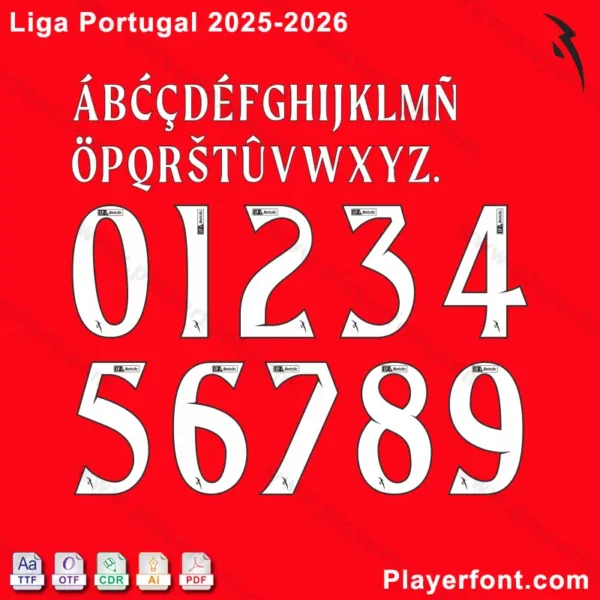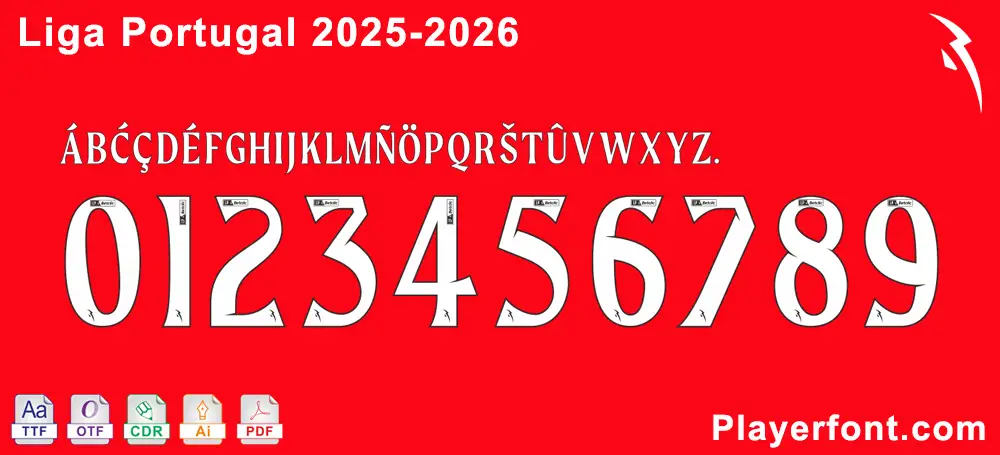
Liga Portugal 2025/2026 Font Download
Elevate your custom football jerseys with the official Liga Portugal 2025/2026 font, the same one used on all player kits in Portugal’s top football league. This comprehensive download package provides everything you need to recreate authentic club and national team shirts.
Official Liga Portugal 2025/26 white font on a red background with numbers and letters for jersey customization.
Official Liga Portugal font used on player jerseys in the Liga Portugal 2025/2026 season.
Close-up view of the Liga Portugal 2025/2026 white jersey font showing the unique design details on numbers and letters.Liga Portugal 2025/2026 Font Download